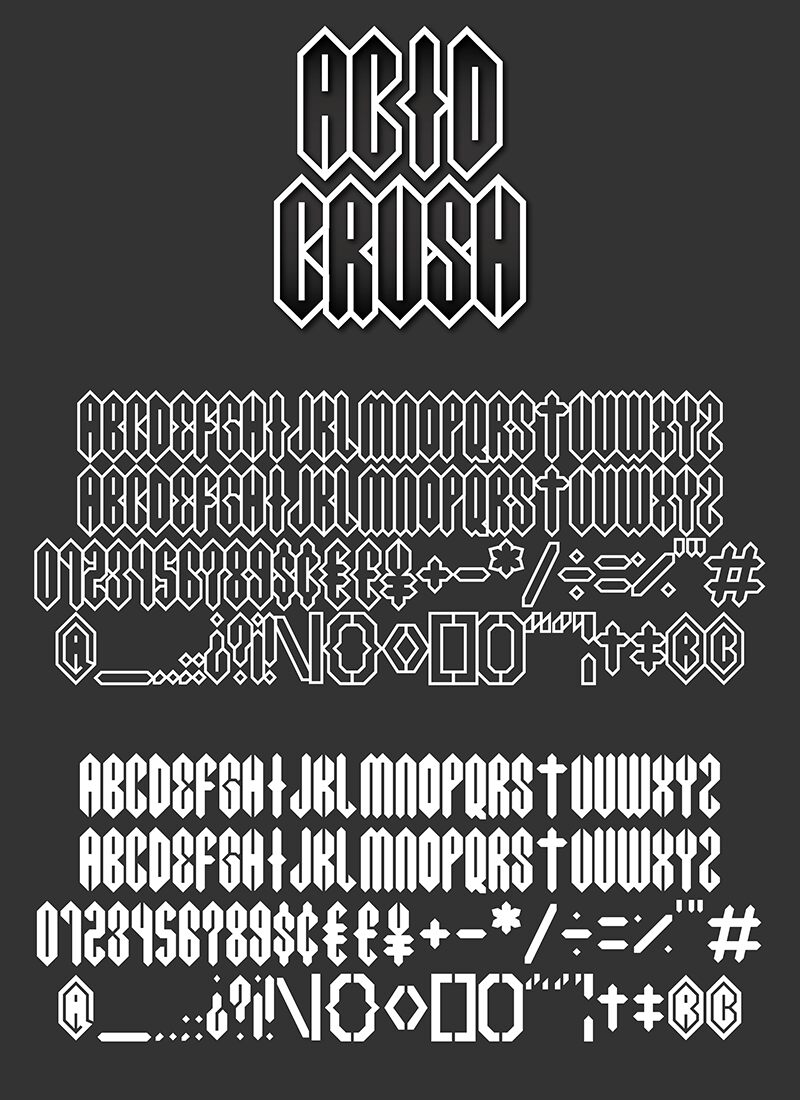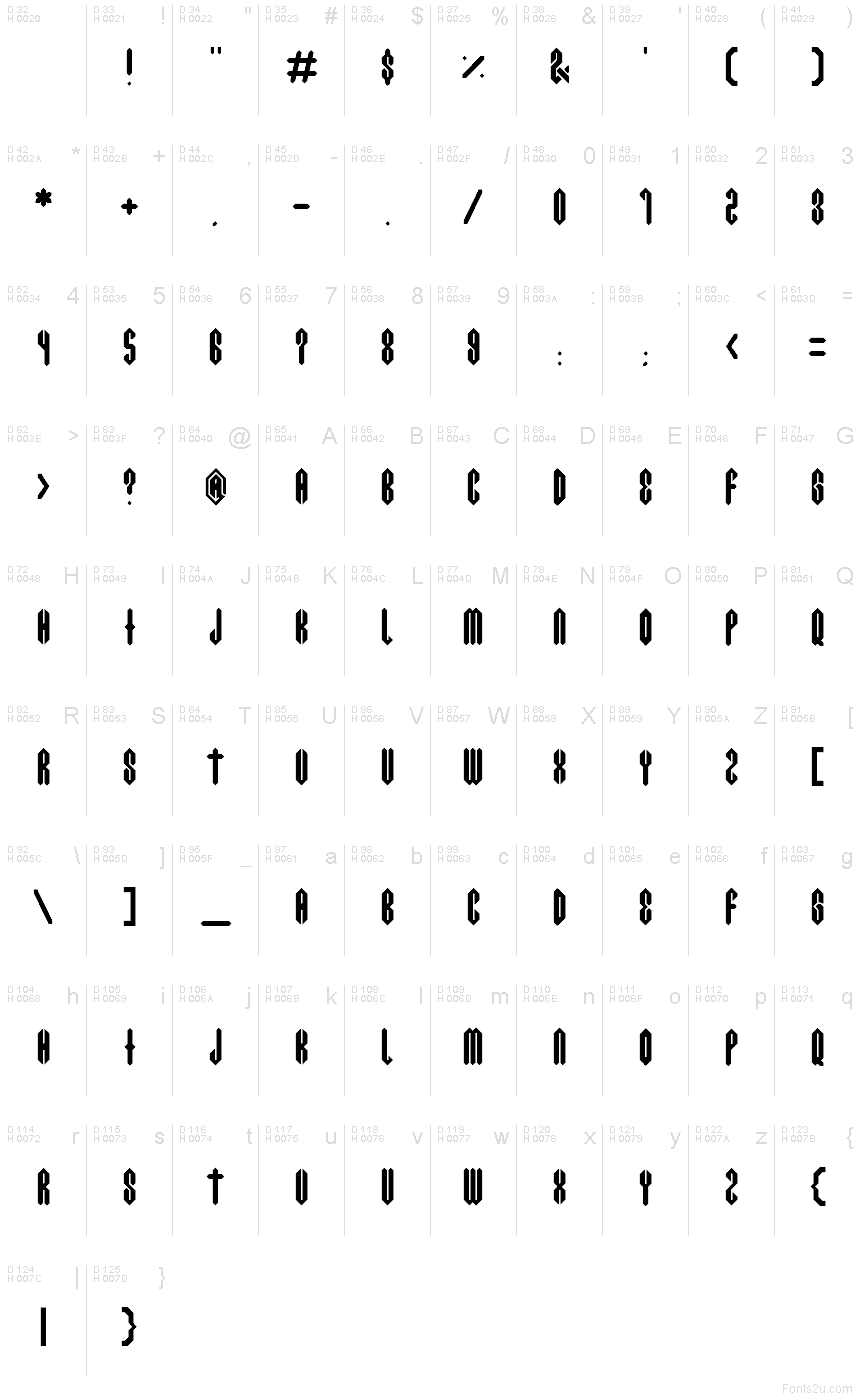
Acid Crush Inside
Acid Crush Inside font by Felipe Nascimento is a free modern gothic display font. Built within the Acid Crush family, it stands out for its carved “inside” strokes—slender vertical inlines that slice through chunky, faceted forms. The letters feel chiseled and mechanical at once, with octagonal corners, steep diagonals, and a compressed rhythm that hits like stamped metal.
Using Acid Crush Inside, headlines gain a hard-edged pulse that shines on club posters, industrial album art, game titles, horror teasers, festival branding, and streetwear graphics. This free font thrives at large sizes, where the inner cuts read crisp and graphic. Pair it with a simple geometric sans for body copy to let the angular texture lead without clutter.
Created in 2022 to support a logo whose name changed frequently. Existing "Cool S" fonts didn’t meet the specific design rules for the characters, so many glyphs were created and only a few additional glyphs were needed to complete the font.